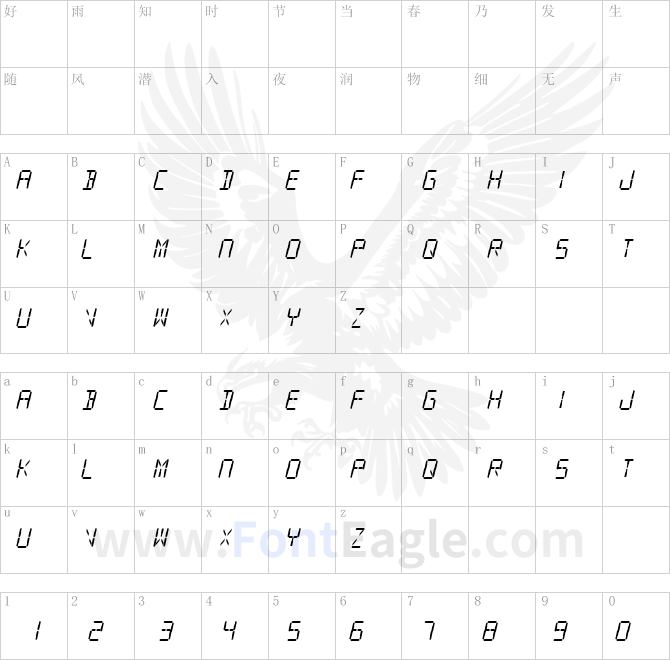
- Font name:SF Digital Readout
- Font Subfamily:Medium Oblique
- Font Subfamily ID:ShyFontsTypeFoundry: SF Digital Readout Medium Oblique: 2000
- Font Full Name:SF Digital Readout Medium Oblique
- Postscript:SFDigitalReadout-MediumOblique